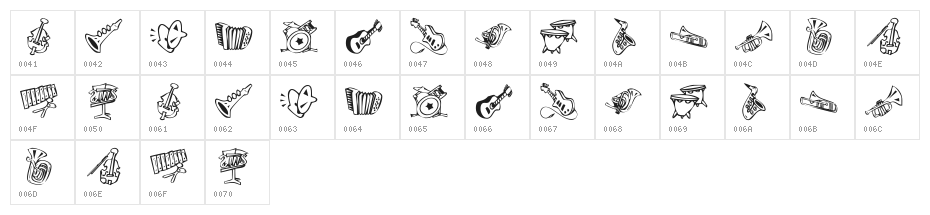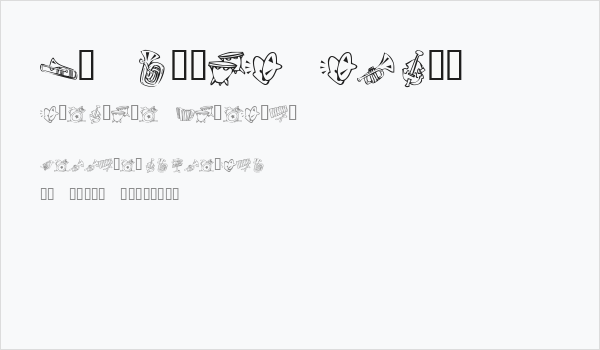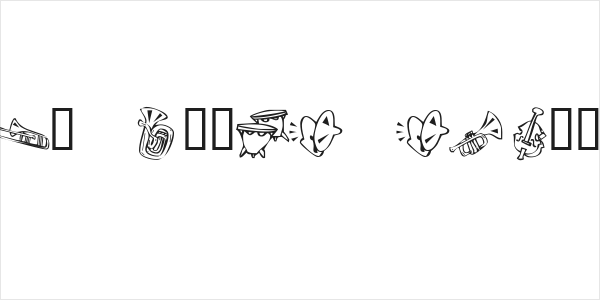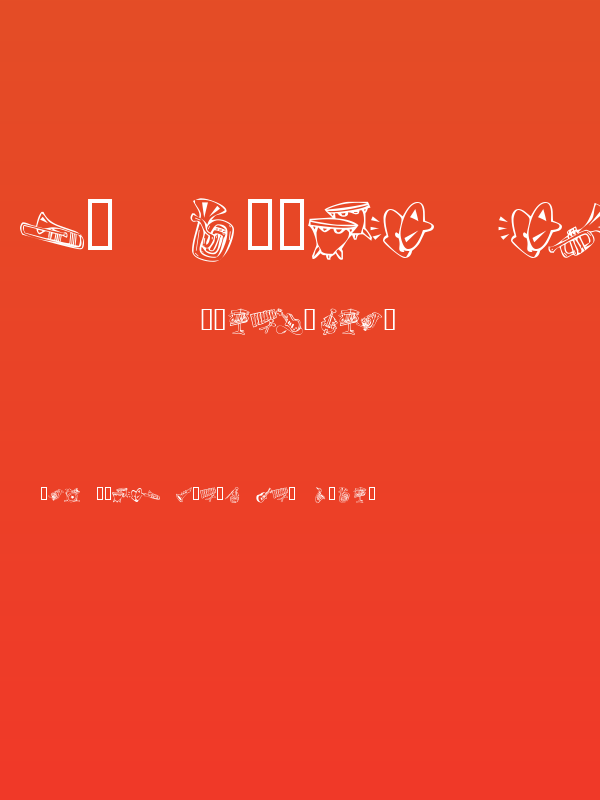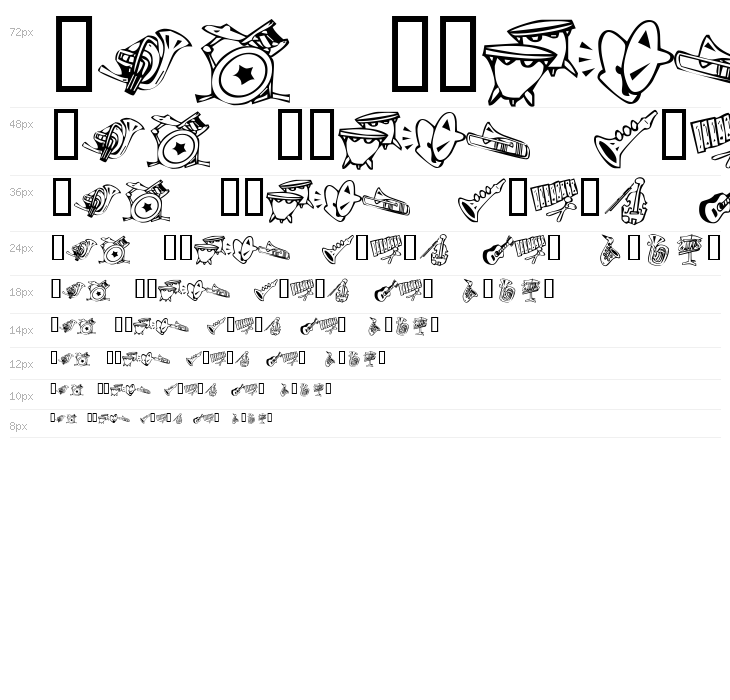
KR Music Class Font
KR Music Class Description
This is a decorative font featuring a playful and whimsical design with musical instrument illustrations. Each character is represented by a unique musical instrument, creating a lively and artistic feel. The font captures the essence of music and creativity, making it ideal for projects that require a fun and engaging visual element. The characters are detailed and expressive, showcasing a variety of instruments such as guitars, drums, and trumpets. This font is perfect for music-themed designs, children's projects, or any creative endeavor that seeks to incorporate a musical flair.
| Overall Style | Playful and Artistic |
| Use Case | Logos, Posters, Creative Projects |
| Proposed Projects | Ideal for music-themed posters, children's books, educational materials, and creative event invitations. |